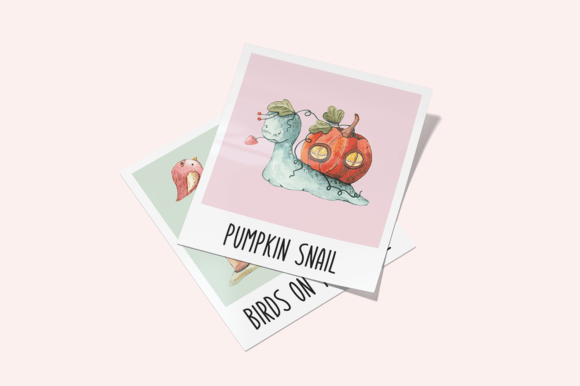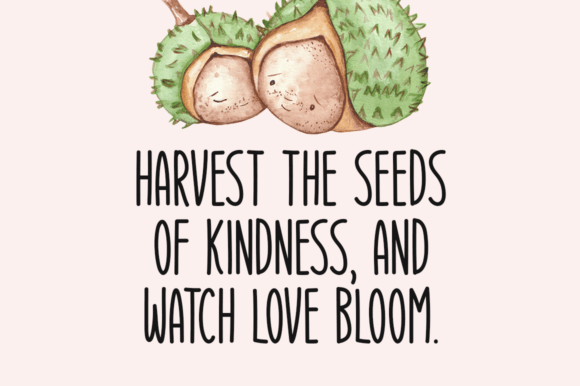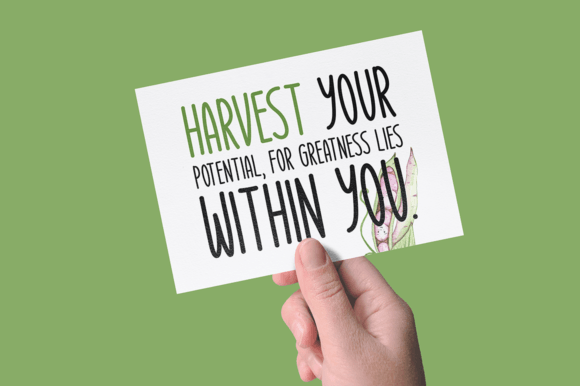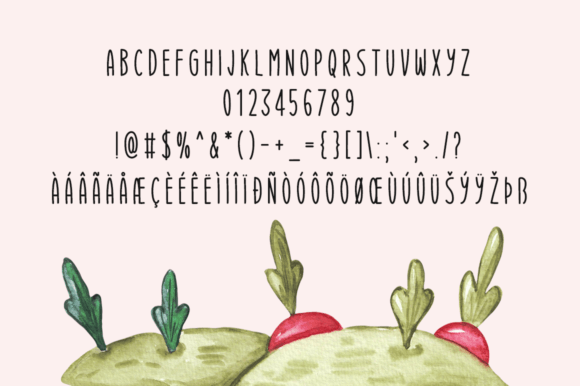
Introduction to Harvest Joy Font
Do you remember the thrill of brainstorming a new creative project and envisioning it coming to life? The spark of an idea, the rush of excitement, and the eagerness to bring it to fruition? For designers, this moment is a regular occurrence, but what sets apart a truly exceptional project from a good one? A high-quality design resource, of course!
That’s where the Harvest Joy Font comes in – a fun and creative handwritten font that can elevate your projects to the next level. With its playful touch and versatility, it’s no wonder that this font has become a go-to choice for designers looking to add a personal touch to their work. Whether you’re working on a digital design, a print project, or even a website, the Harvest Joy Font is sure to bring a smile to your face and a touch of joy to your design.
Key Features of Harvest Joy Font
• High-quality design resource ideal for creative projects
• Unique, hand-drawn style with a natural, whimsical feel
• Includes a wide range of characters, including uppercase and lowercase letters, numbers, and punctuation marks
Honest Review: Harvest Joy Font
I recently stumbled upon the Harvest Joy Font while searching for a design resource for a creative project. I was immediately drawn to its high quality and vintage aesthetic.
• ✨ The font’s playful, hand-drawn feel is perfect for adding a touch of whimsy to designs.
• ⚠️ The font may not be suitable for formal or professional designs due to its casual, vintage feel.
• ⚠️ Some letters may not be fully connected, which can make it difficult to read in certain contexts.
Overall, I’m impressed with the Harvest Joy Font. It’s a great addition to any designer’s toolkit, and its free download makes it a valuable resource for creative projects. While it may have some limitations, its unique aesthetic and high quality make it a great choice for designers looking to add a touch of personality to their work.
The Harvest Joy Font is a high-quality design resource ideal for various creative projects. This free download offers a unique and elegant touch to your designs.
The Harvest Joy Font is ideal for various creative projects, including wedding invitations, baby shower invitations, and other special occasion designs. Its elegant design makes it perfect for creating professional-looking graphics and designs.